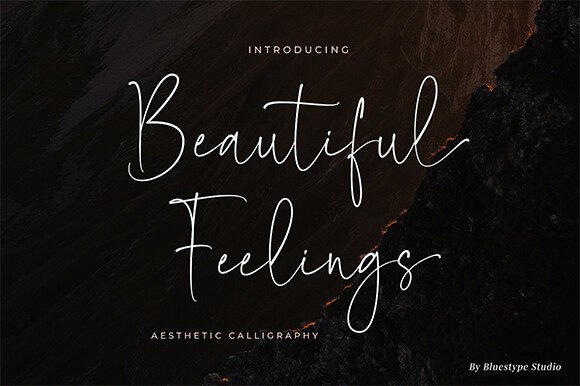
Journey into a Realm of Elegance with Beautiful Feelings Font - Awakens Your Creative Spirit!
In a world saturated with digital noise, capturing attention and leaving an everlasting impression can be a daunting task. With Beautiful Feelings Font, the art of storytelling through typography is elevated to new heights. A captivating handwritten font, it's a visual symphony that orchestrates emotion and meaning into each letterform, inviting your audience to dive into a realm of beauty and charm.
Visualize the allure of your fashion designs adorned with the graceful strokes of Beautiful Feelings. Its meticulously hand-drawn shapes dance across the page, exuding an air of sophistication and elegance. Each letter is a masterpiece, meticulously crafted to evoke romance and captivate the senses. From business branding to fashion statements, quotes that inspire to signatures that leave a lasting mark, Beautiful Feelings Font transforms ordinary text into an extraordinary visual experience.
Unleash your creativity and let the ink flow freely with Beautiful Feelings. Whether you're designing magazine covers that demand attention or logos that embody your brand's essence, this font is the ultimate muse. Its versatility knows no bounds, effortlessly enhancing social media posts, photography watermarks, and wedding invitations. With Beautiful Feelings, your designs transcend the mundane, becoming captivating works of art that resonate with your audience.
Embrace the power of Beautiful Feelings Font and embark on a creative journey that will leave a lasting impression. Discover the font that ignites your imagination, stirs emotions, and captivates hearts. As you weave words together, you'll witness the birth of something truly extraordinary - a visual tapestry that speaks volumes, captivating your audience and leaving them spellbound.